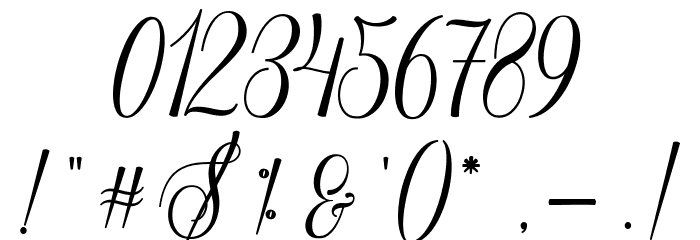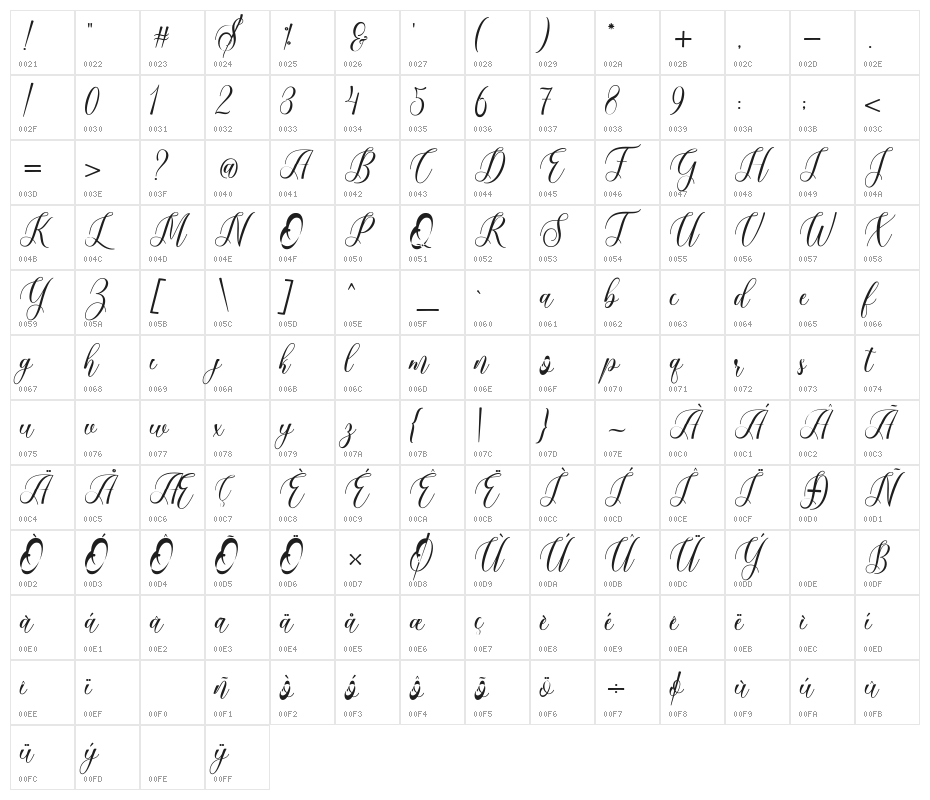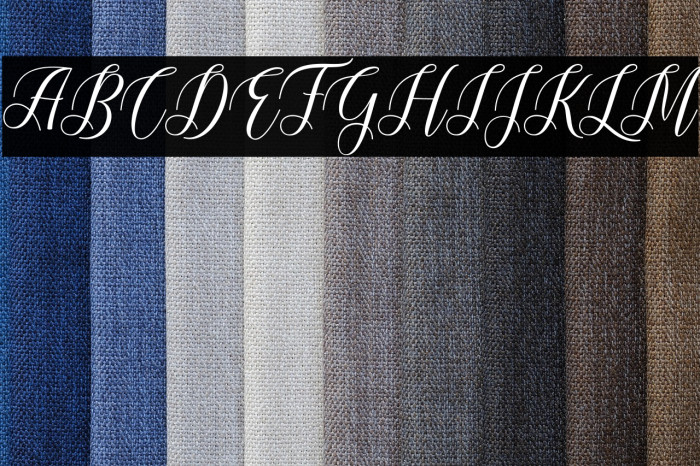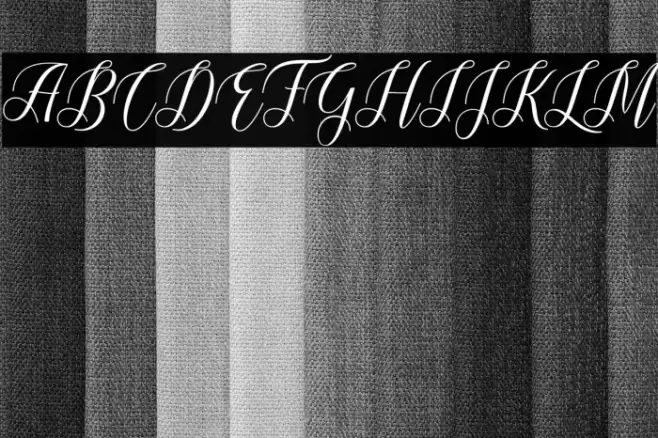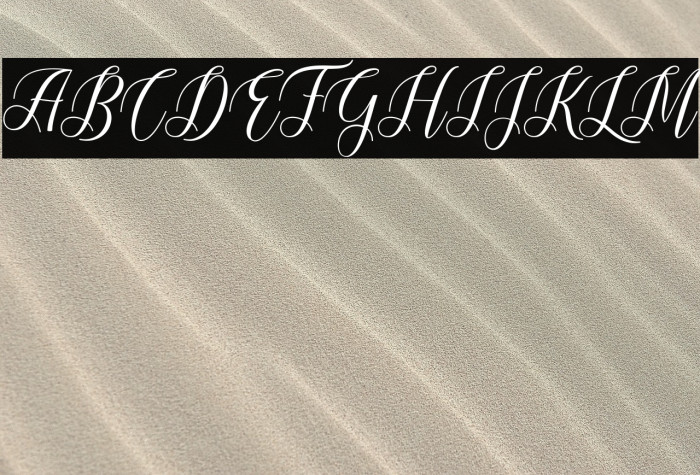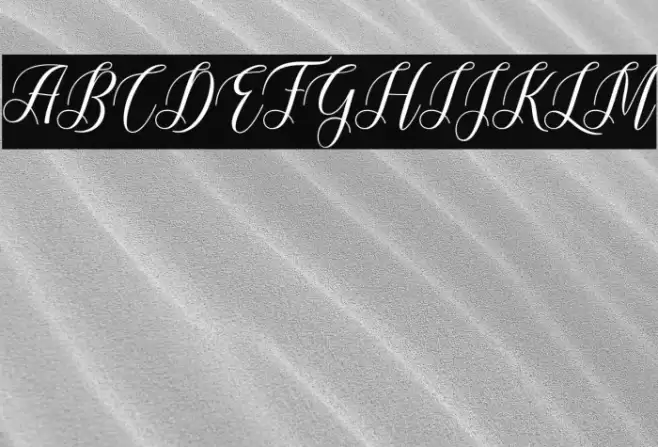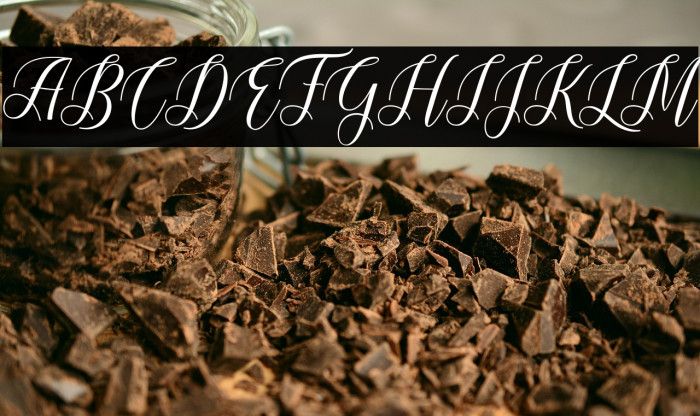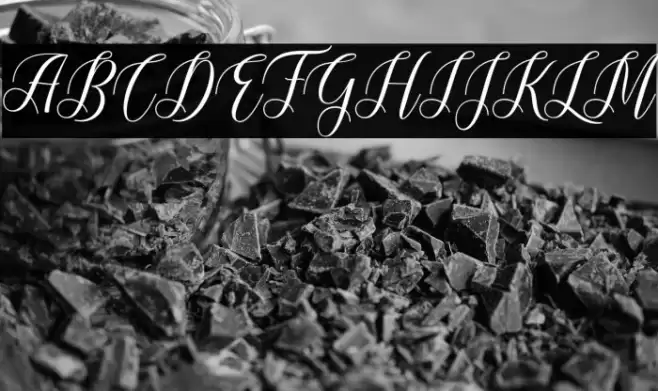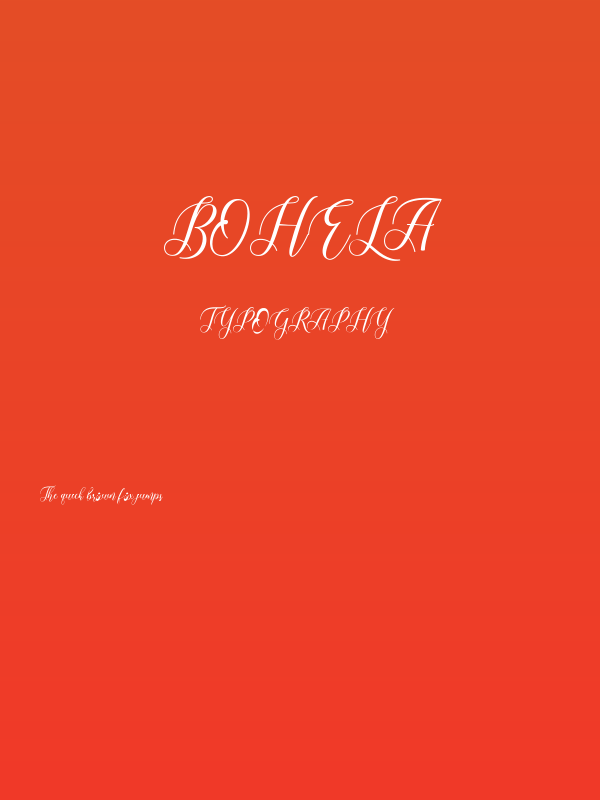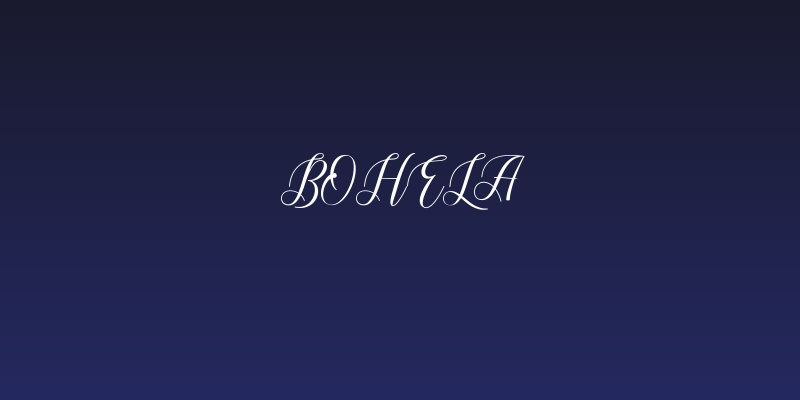
bohela Font
bohela Description
This elegant script font features flowing, interconnected characters that exude a sense of sophistication and grace. The uppercase letters are tall and slender, with sweeping curves and delicate flourishes that enhance their refined appearance. The lowercase letters maintain a consistent style, with smooth, rounded forms that create a harmonious balance. The numerals are designed with a similar elegance, featuring subtle curves and a slightly elongated form. Special characters are crafted with the same attention to detail, ensuring a cohesive look across all elements. This font is perfect for projects that require a touch of elegance and class.
| Proposed Projects | Ideal for wedding invitations, elegant branding, high-end product packaging, and sophisticated event posters. |